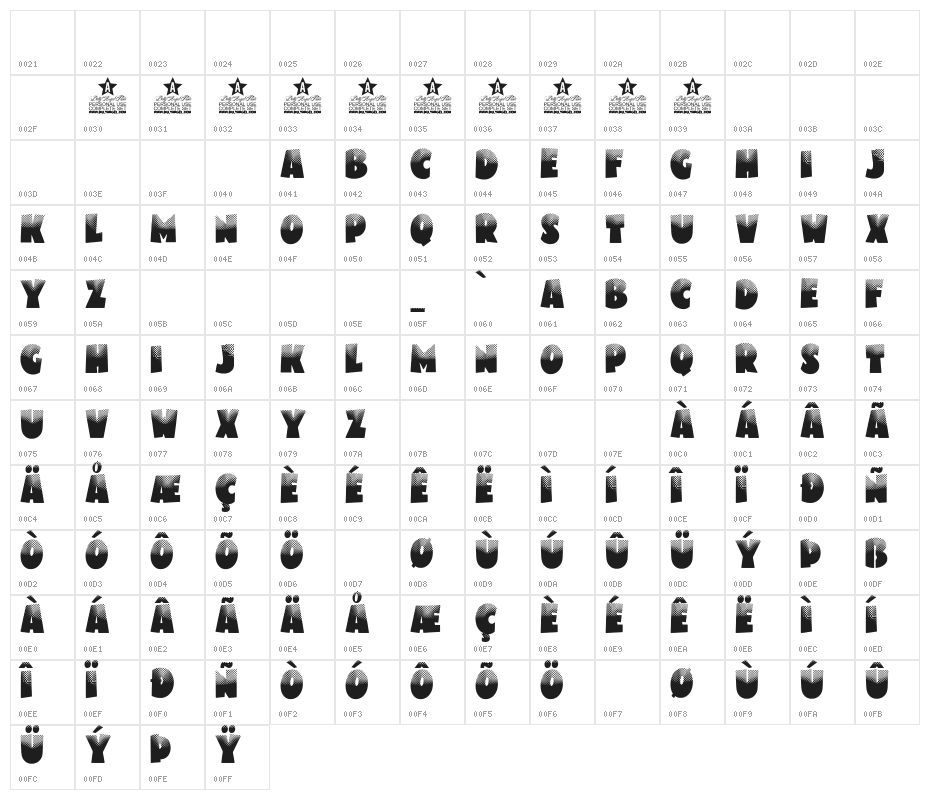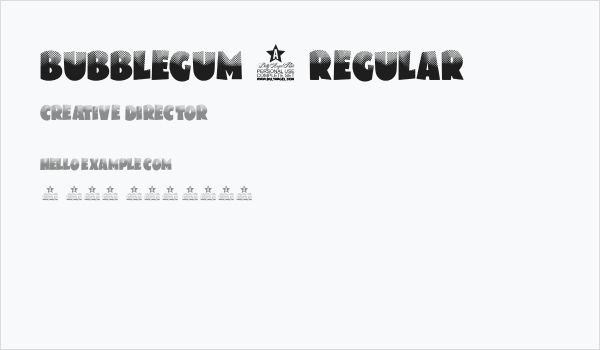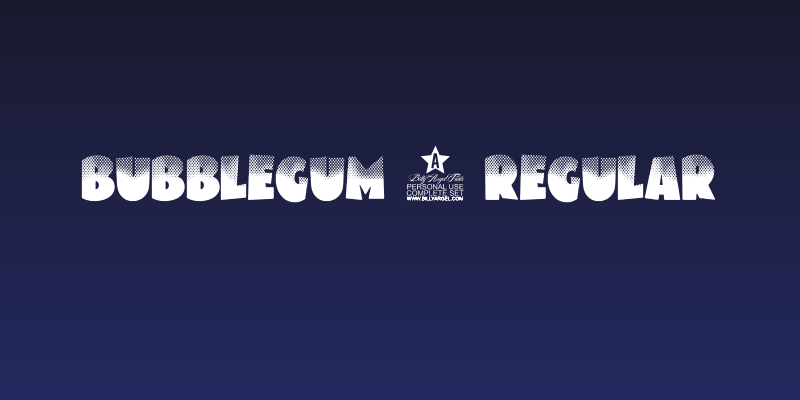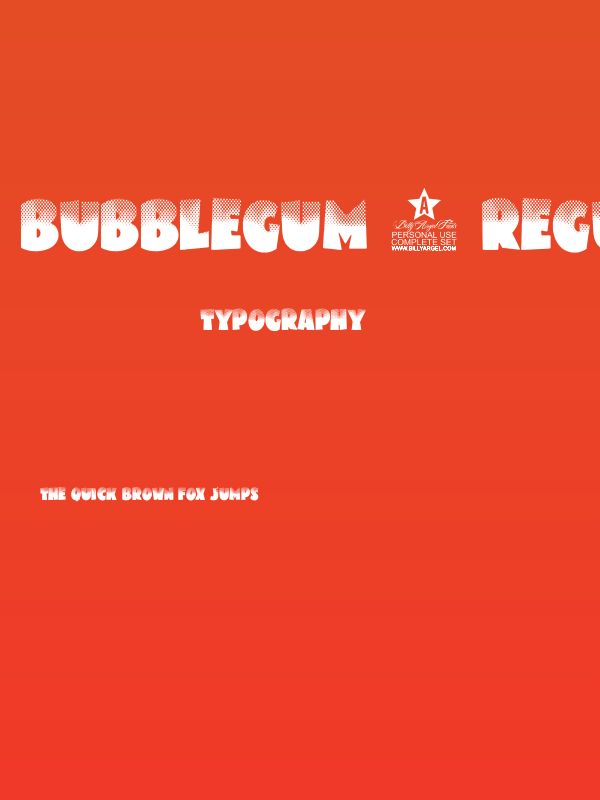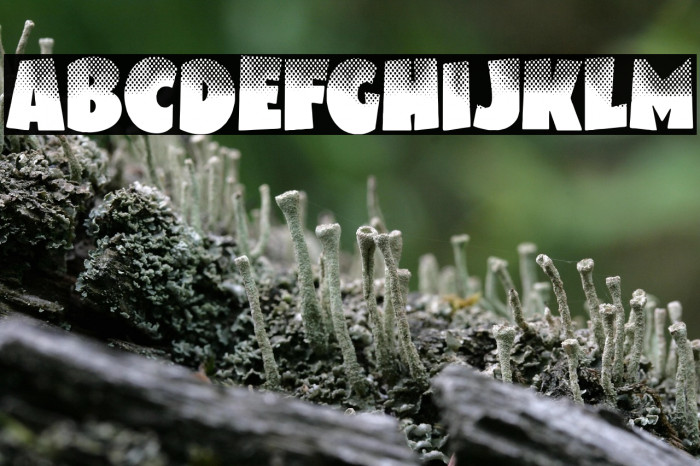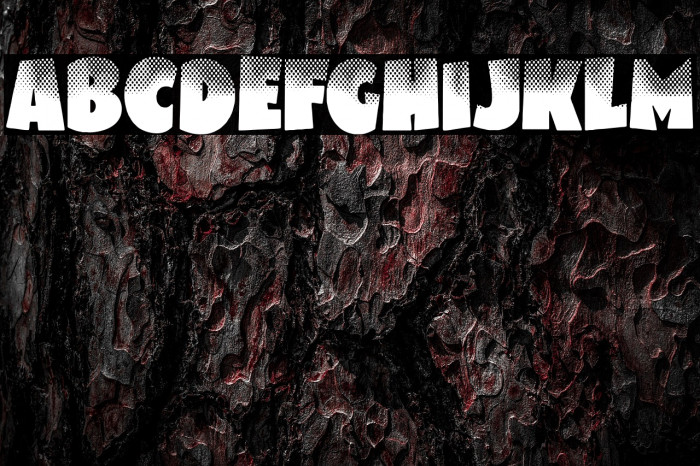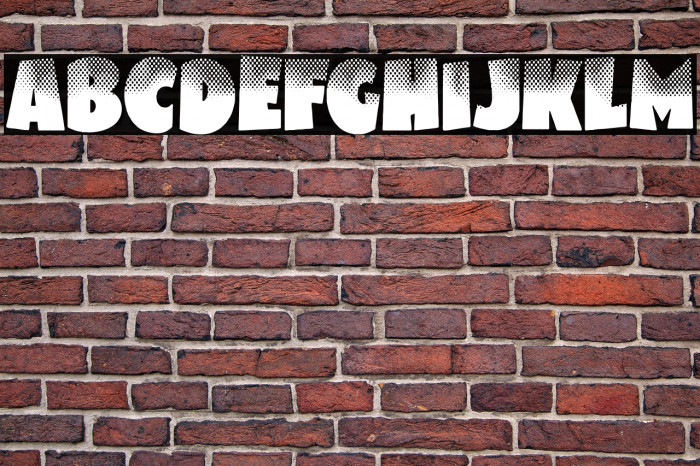
BUBBLEGUM 2 Regular Font
BUBBLEGUM 2 Regular Description
This playful and bold font features a unique bubble-like appearance with a dotted texture that adds a sense of fun and whimsy. The letters are thick and rounded, giving them a substantial presence on the page. The uppercase letters are consistent in their boldness, while the dotted pattern provides a dynamic visual effect. This font is ideal for projects that require a lively and energetic feel, making it perfect for children's materials, playful branding, or eye-catching headlines.
| Overall Style | Playful, Fun |
| Proposed Projects | Ideal for children's books, playful branding, party invitations, and eye-catching headlines. |